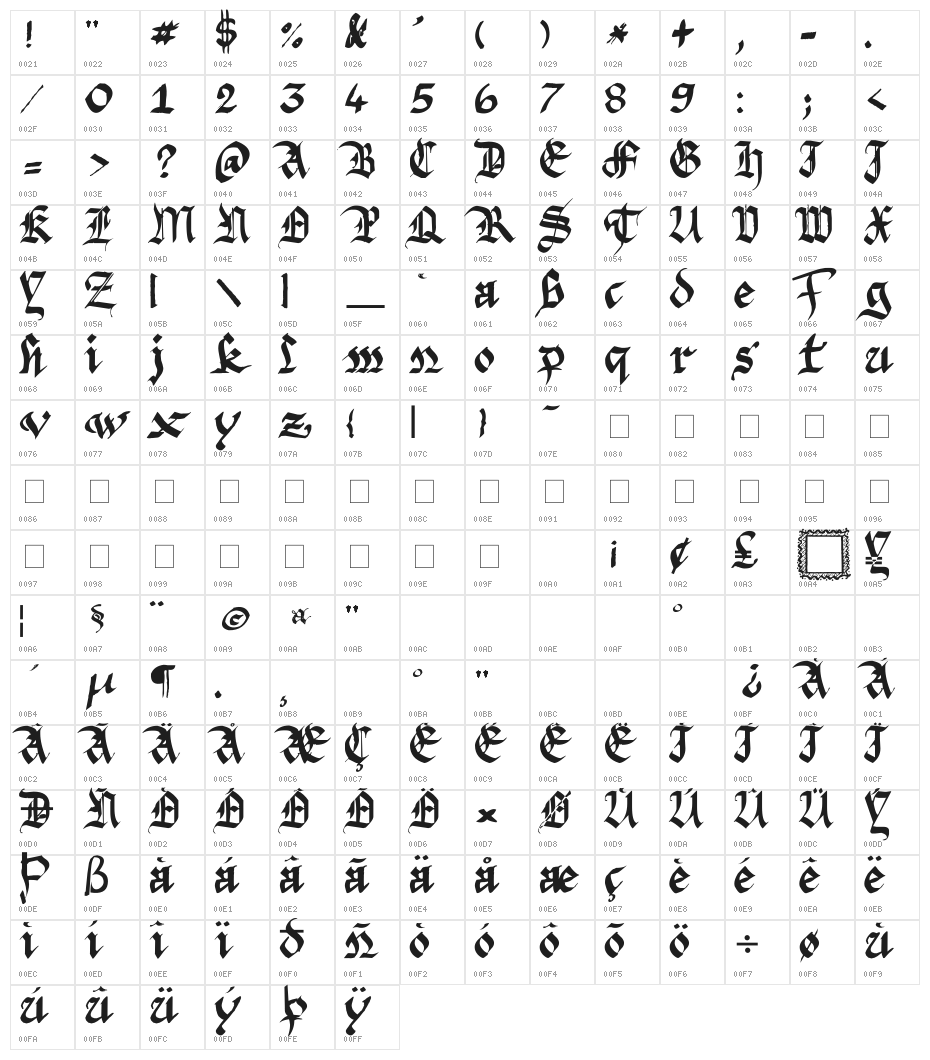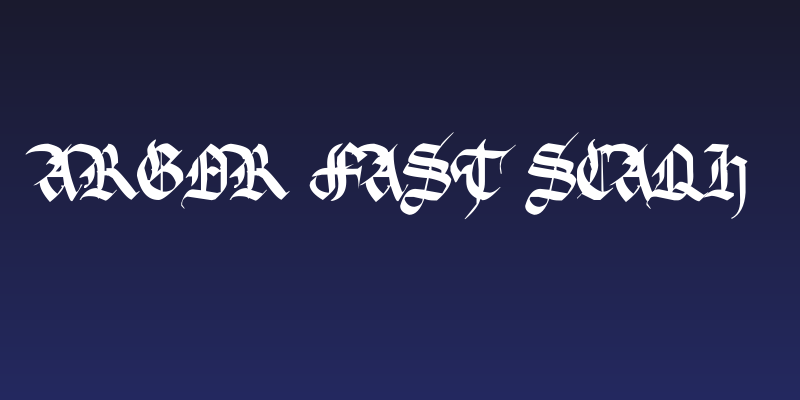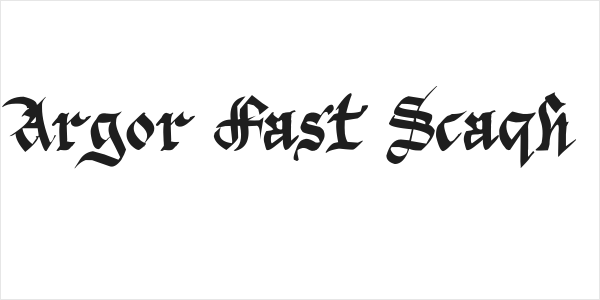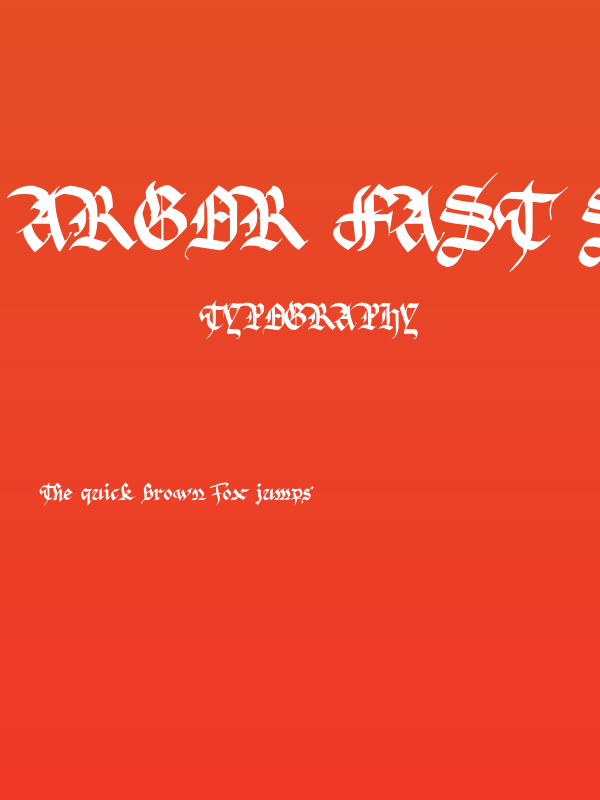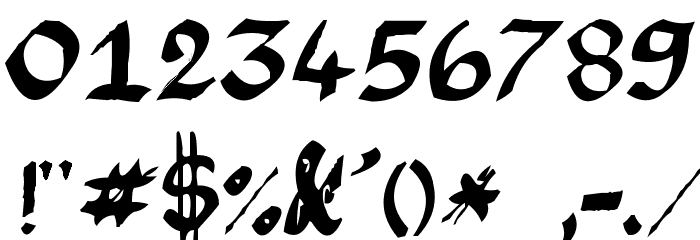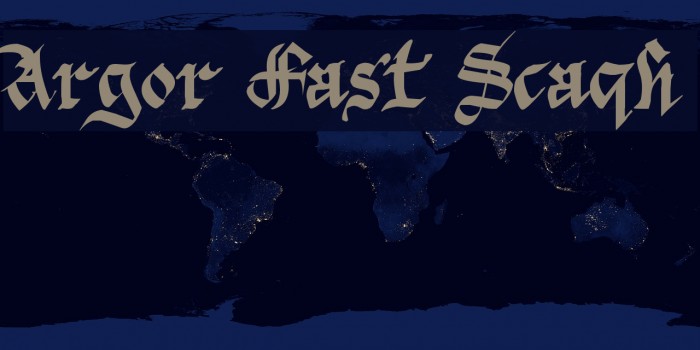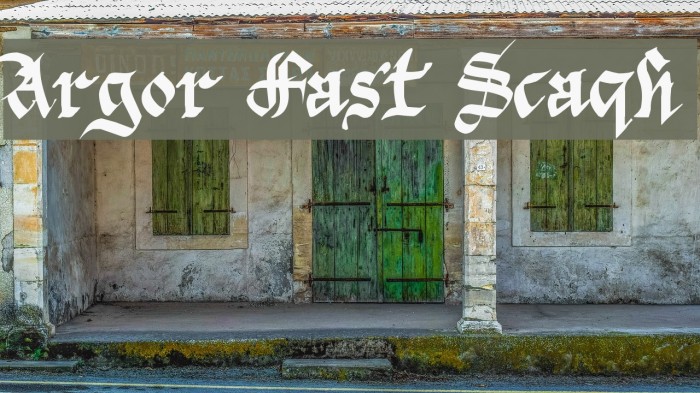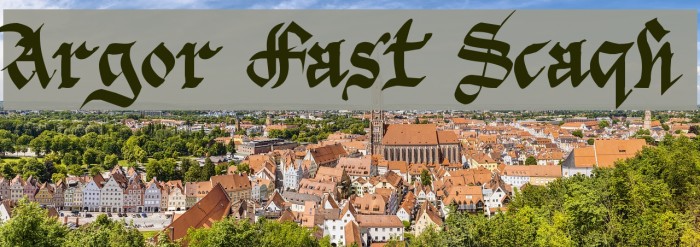
Argor Fast Scaqh Font
Argor Fast Scaqh Description
This font exhibits a bold and dramatic style, reminiscent of traditional blackletter typefaces. The characters are intricately designed with sharp angles and elaborate strokes, creating a sense of historical elegance and formality. The uppercase letters are particularly ornate, featuring pointed serifs and intricate detailing. The lowercase letters maintain the same level of complexity, with a consistent flow and rhythm. The numerals and special characters are equally stylized, ensuring a cohesive appearance across all elements. This font's unique aesthetic makes it suitable for projects that require a touch of medieval or gothic flair.
| Proposed Projects | Ideal for historical documents, gothic-themed designs, book covers, and event invitations. |